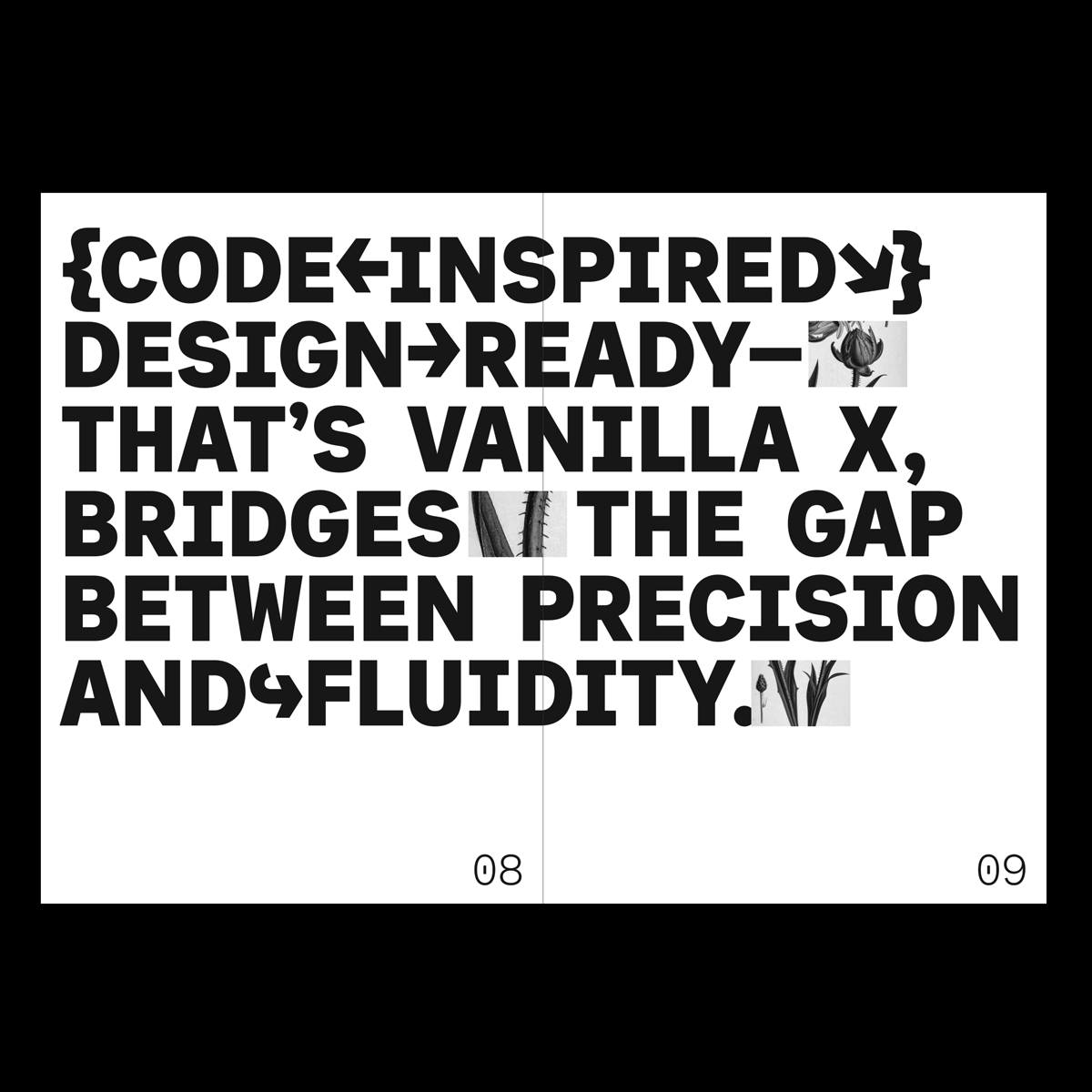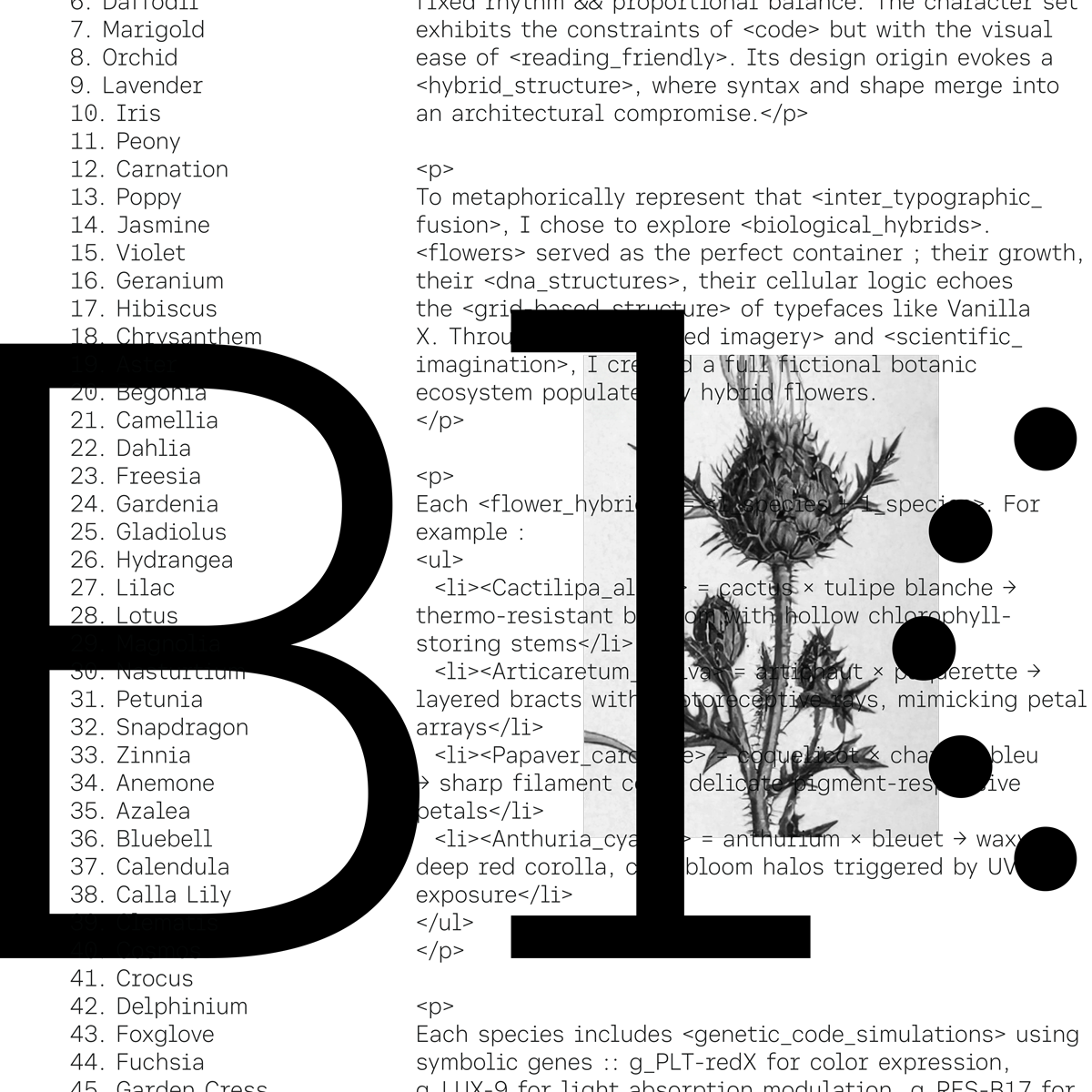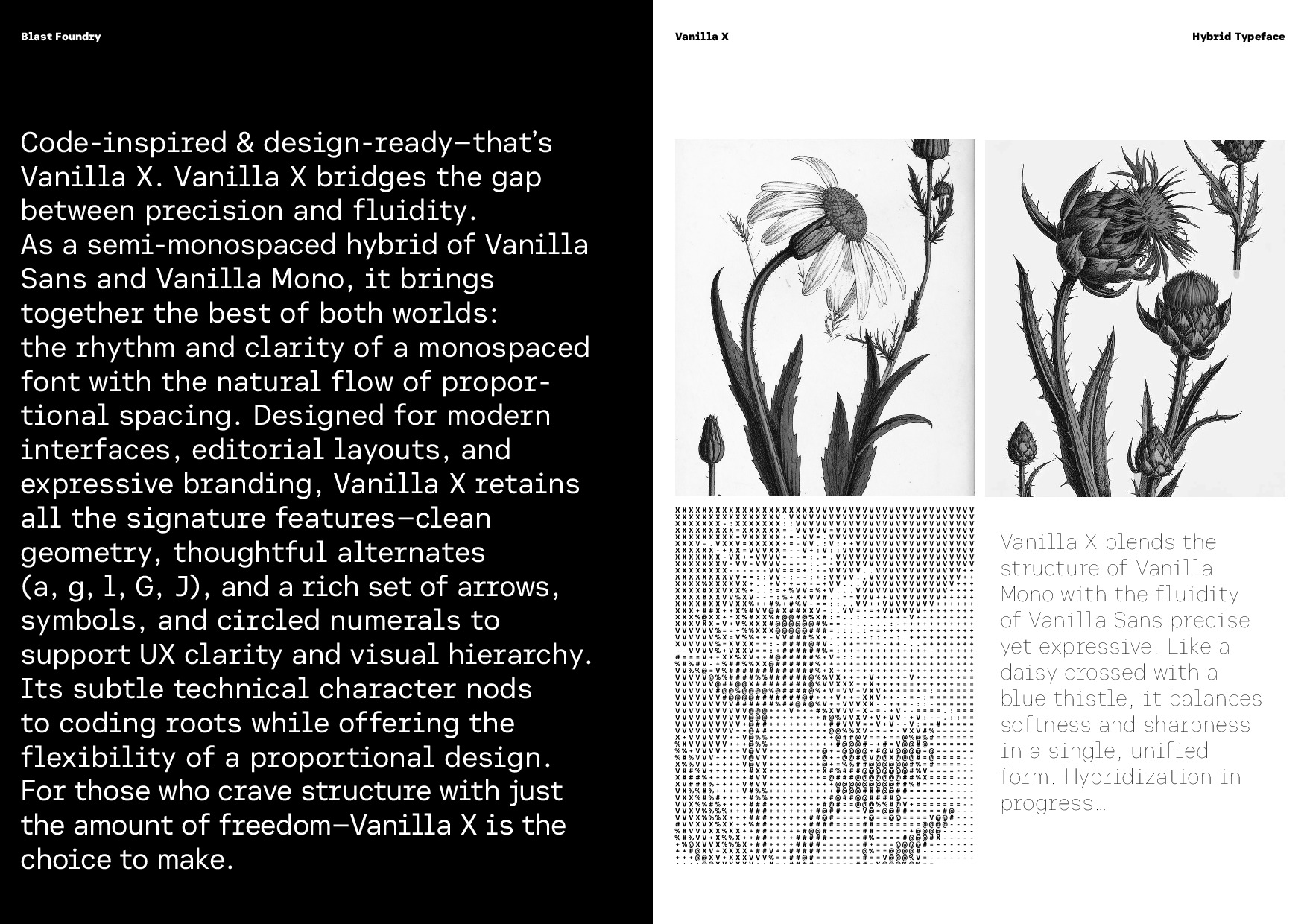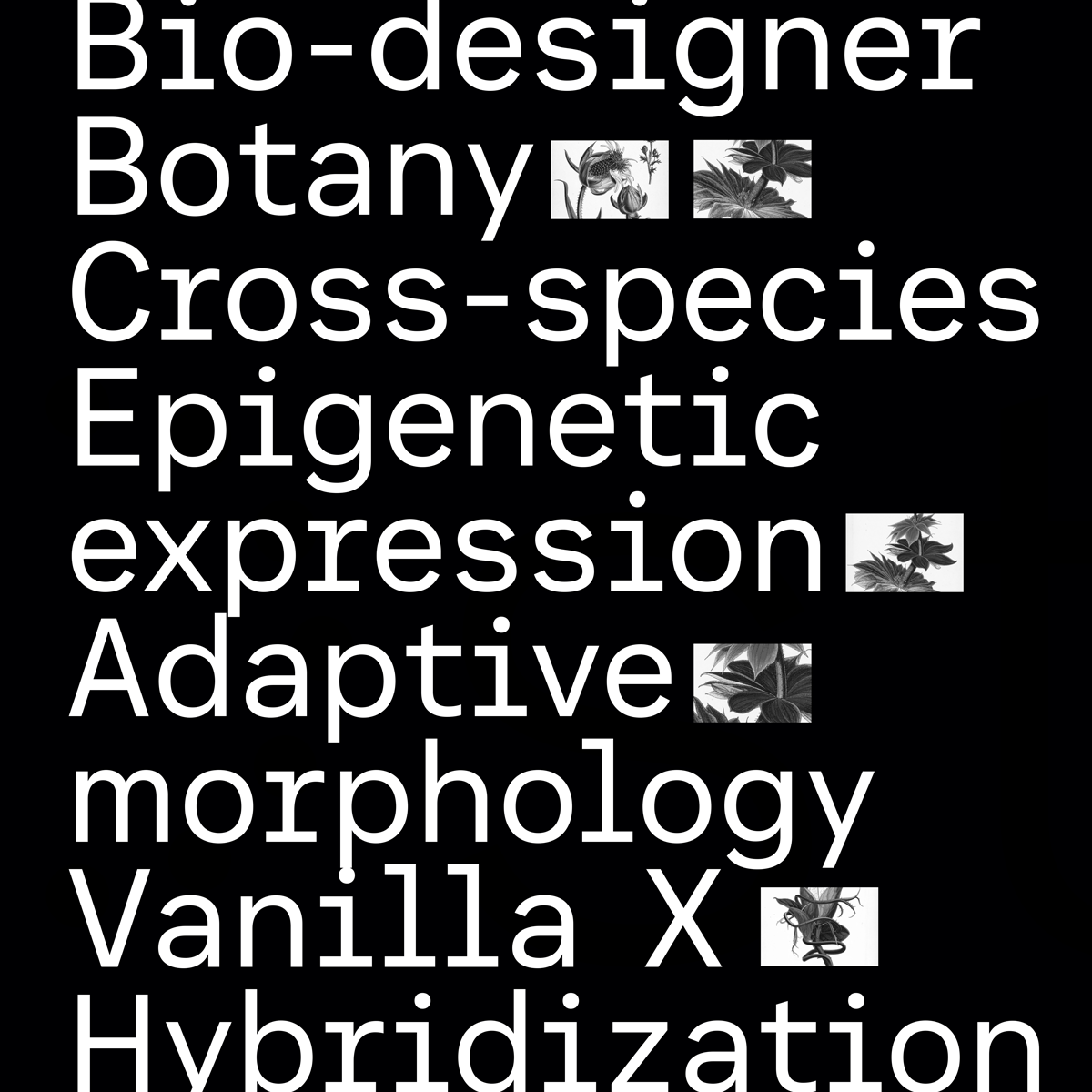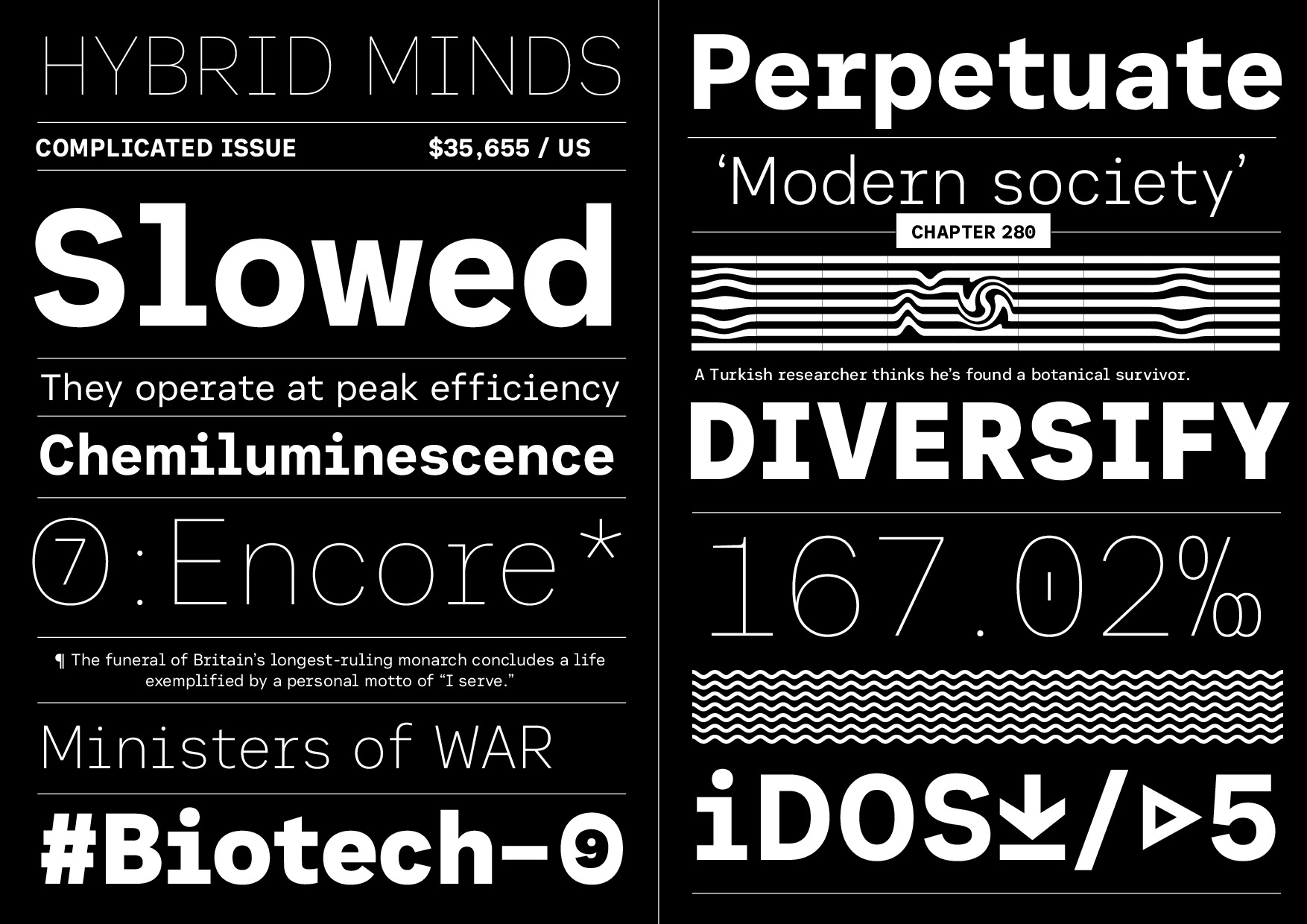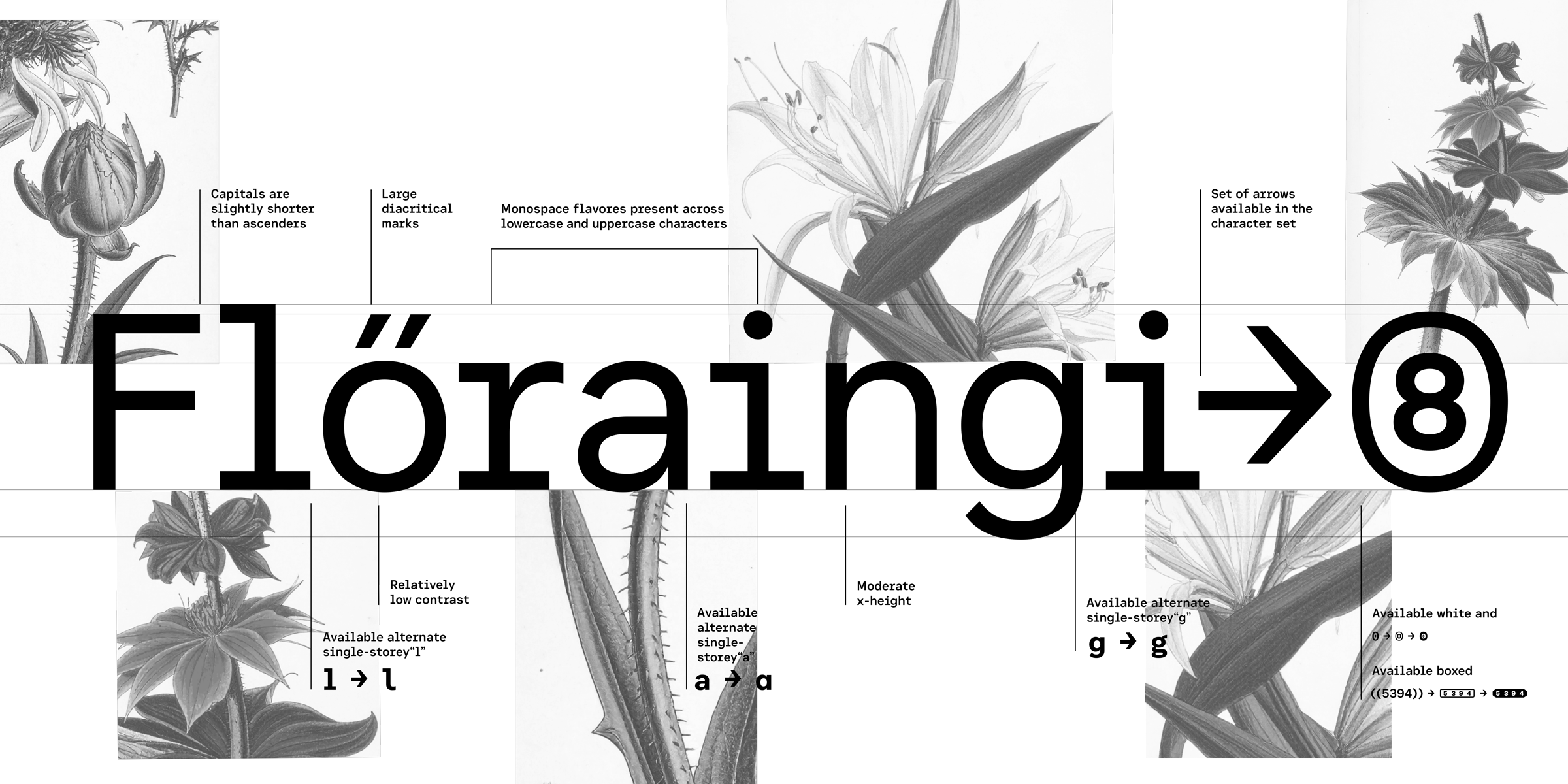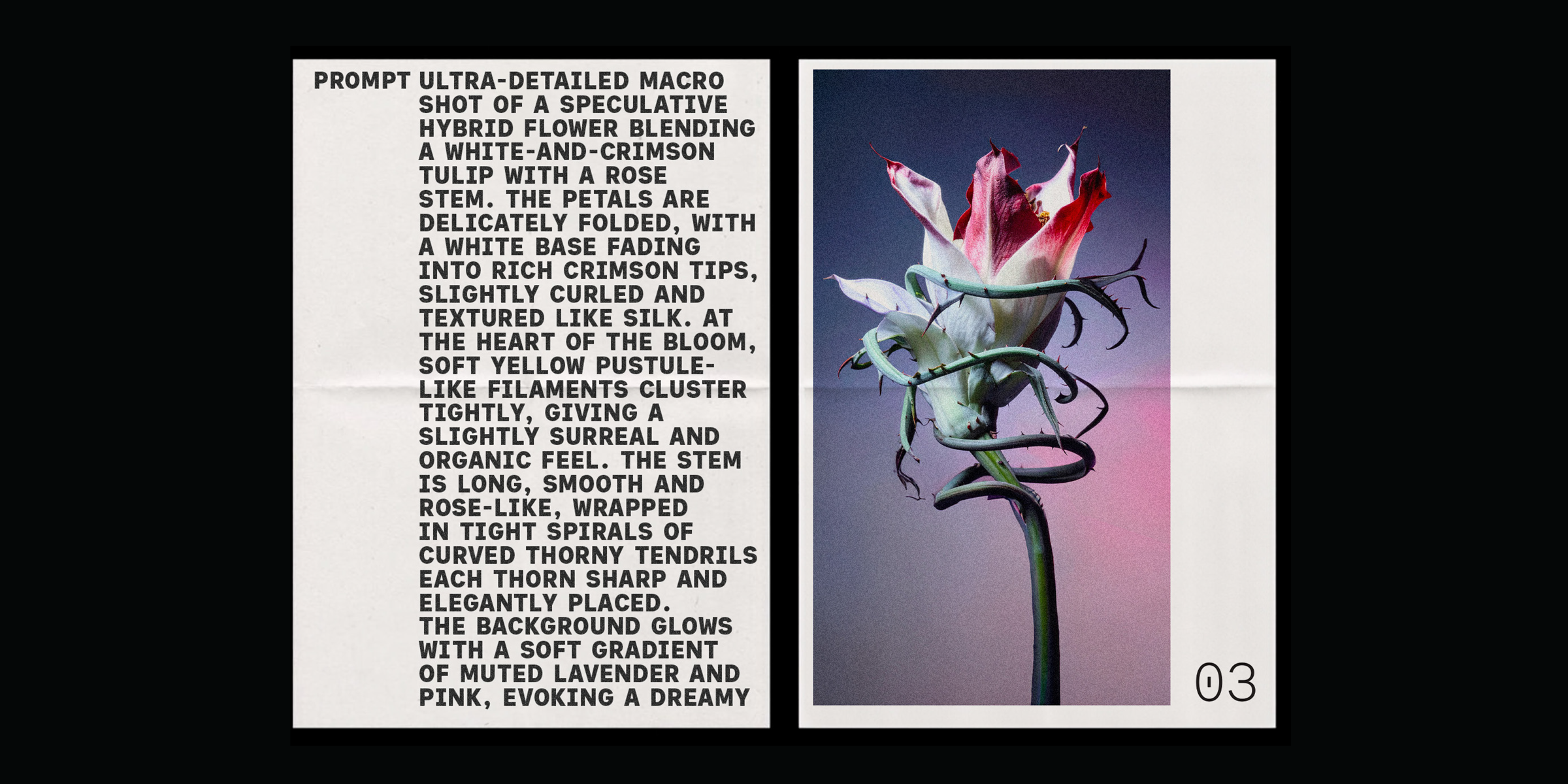
Vanilla X
▶ Designed by Barbara Bigosińska, 2025 ◀
Technical sans in 8 weights
Vanilla X is a semi-monospaced hybrid that does things a little differently. It gives you the structure and alignment of a monospaced font, with the ease and rhythm of proportional spacing. The result? A typeface that feels technical, but never rigid. With 8 weights to play with, it adapts comfortably to interface design, editorial systems, and anything else that needs clarity and consistency without the stiffness.
It also comes with all the signature features of the Vanilla collection — smart stylistic alternates (a, g, l, G, J), arrows, circled numerals, and a full A–Z set of pattern glyphs. These are more than nice-to-haves: they’re tools for designers who want freedom within structured layouts, whether you're working on UI components, app typography, or data-heavy dashboards. Vanilla X helps you keep things aligned, readable, and quietly expressive.